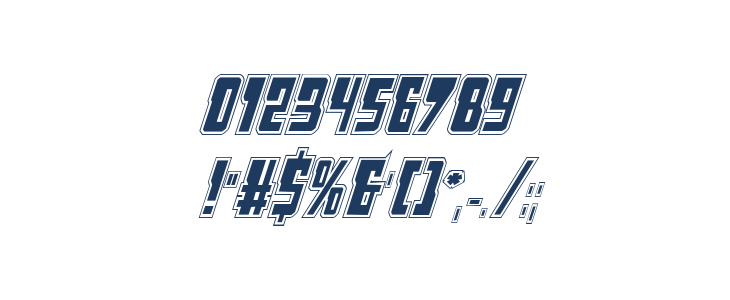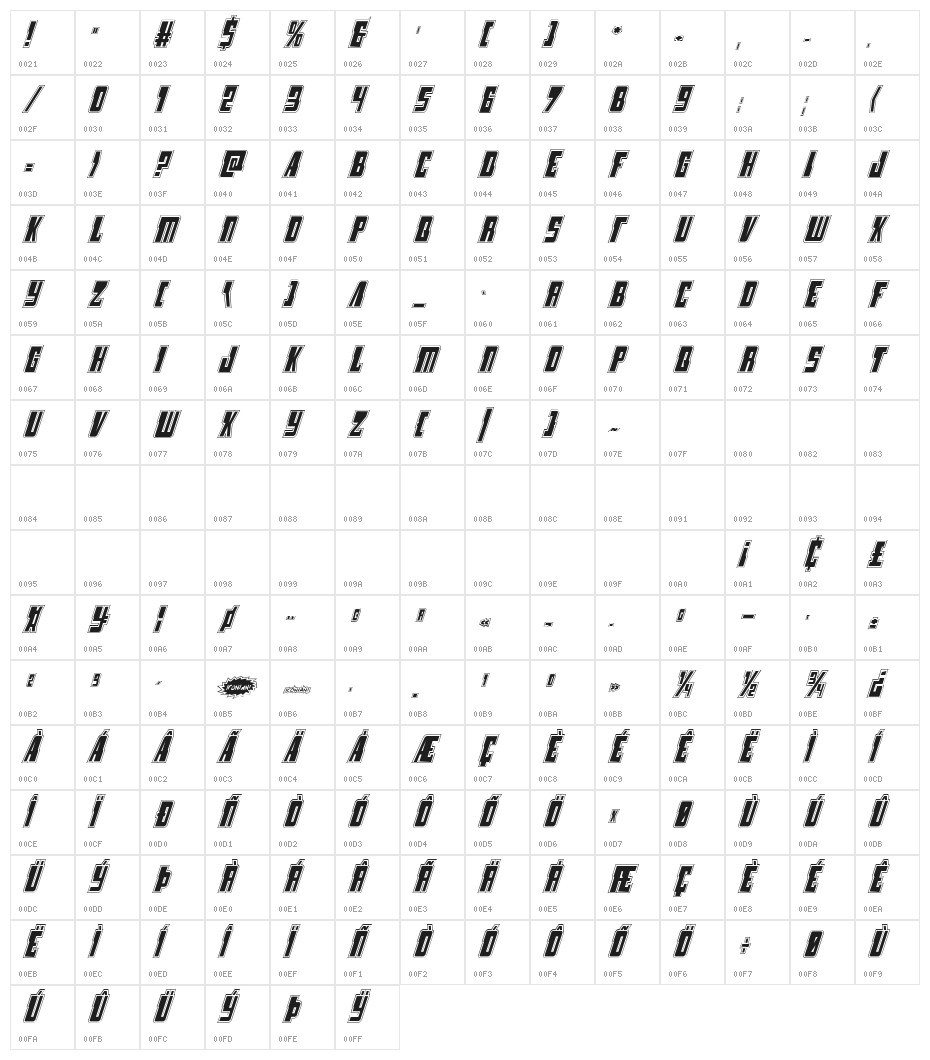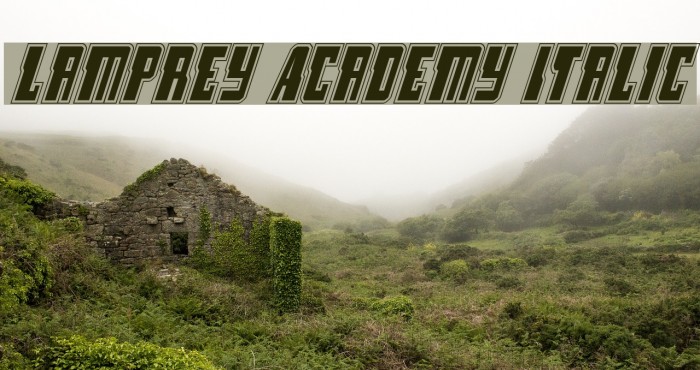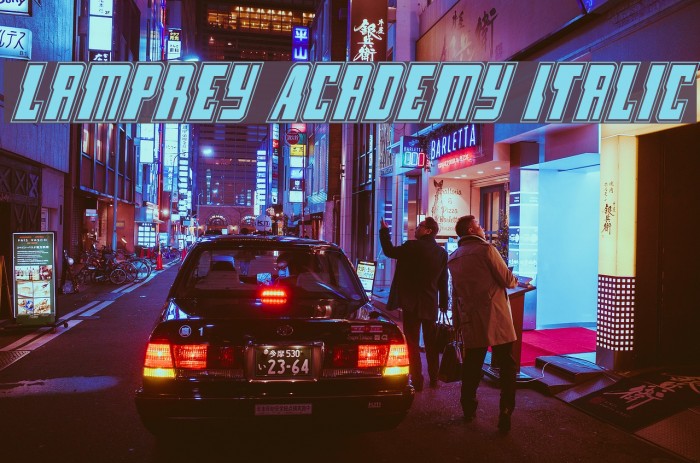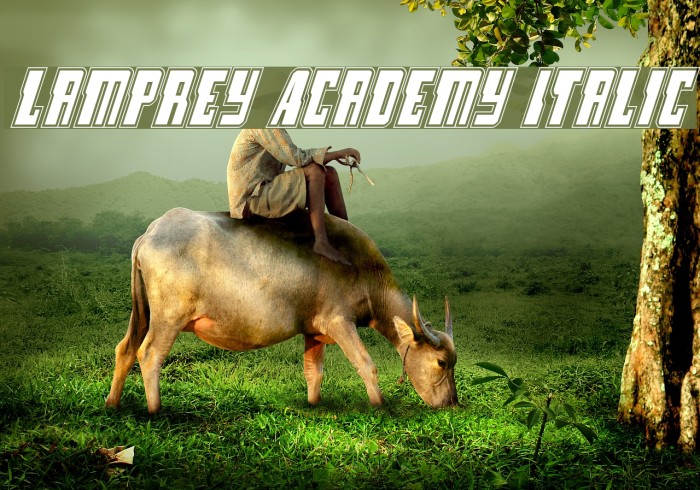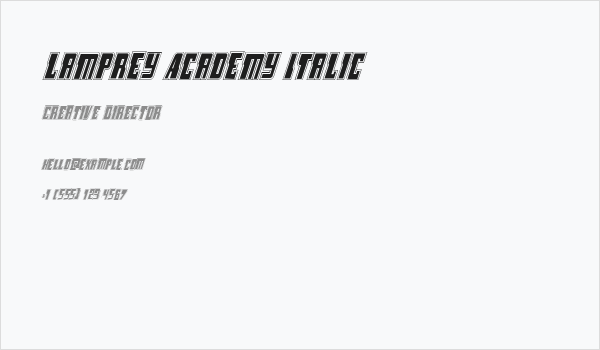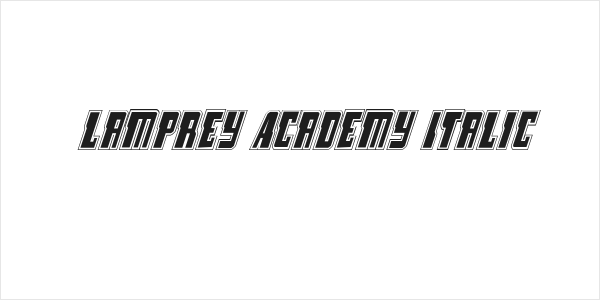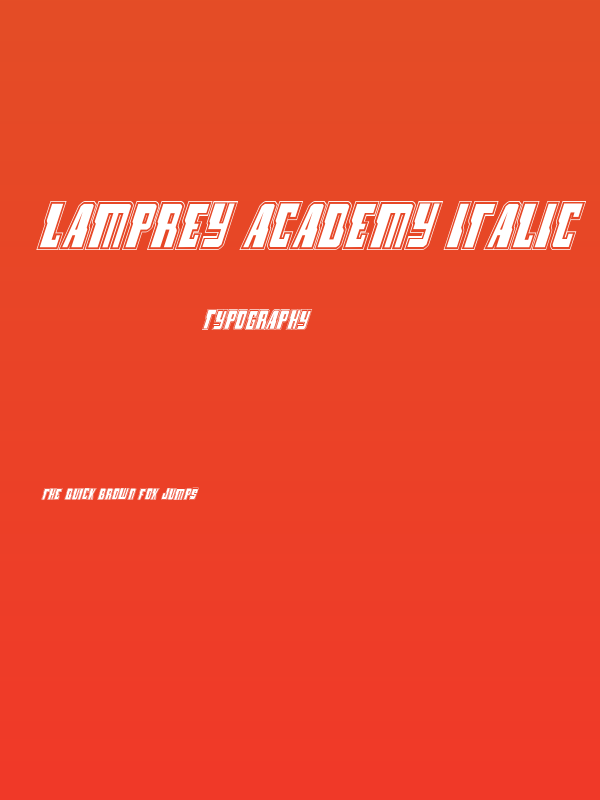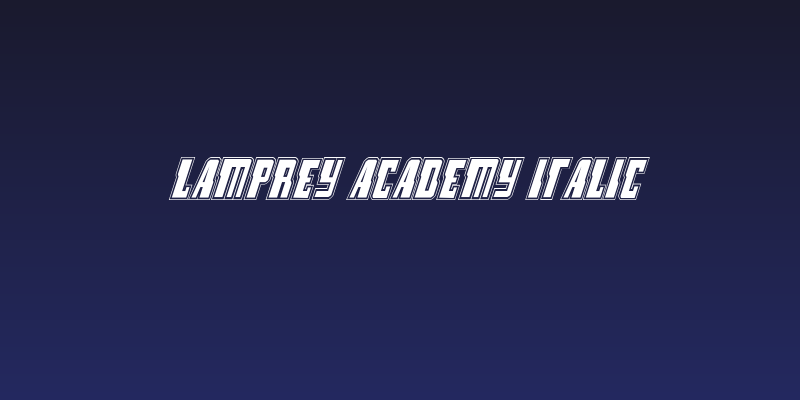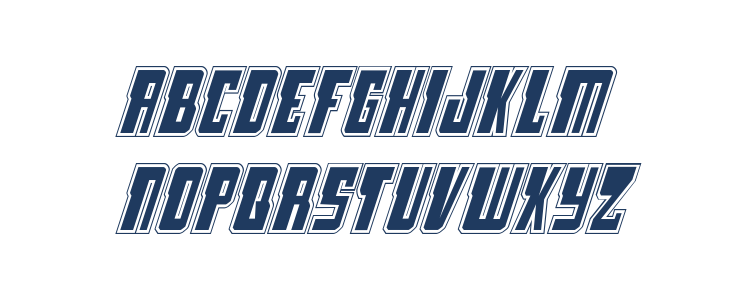
Lamprey Academy Italic Font
Lamprey Academy Italic Description
This font features a bold, italicized style with a strong, impactful presence. The characters are designed with a distinct slant, giving them a dynamic and forward-moving appearance. Each letter is outlined, creating a striking contrast between the bold interior and the surrounding space. The font is highly stylized, with sharp angles and a geometric structure that adds to its modern and edgy feel. The numbers and special characters maintain the same bold and italicized characteristics, ensuring consistency across all elements. This font is ideal for projects that require a strong visual impact and a sense of movement.
| Proposed Projects | Ideal for sports branding, dynamic posters, video game titles, and any project needing a bold, energetic typeface. |